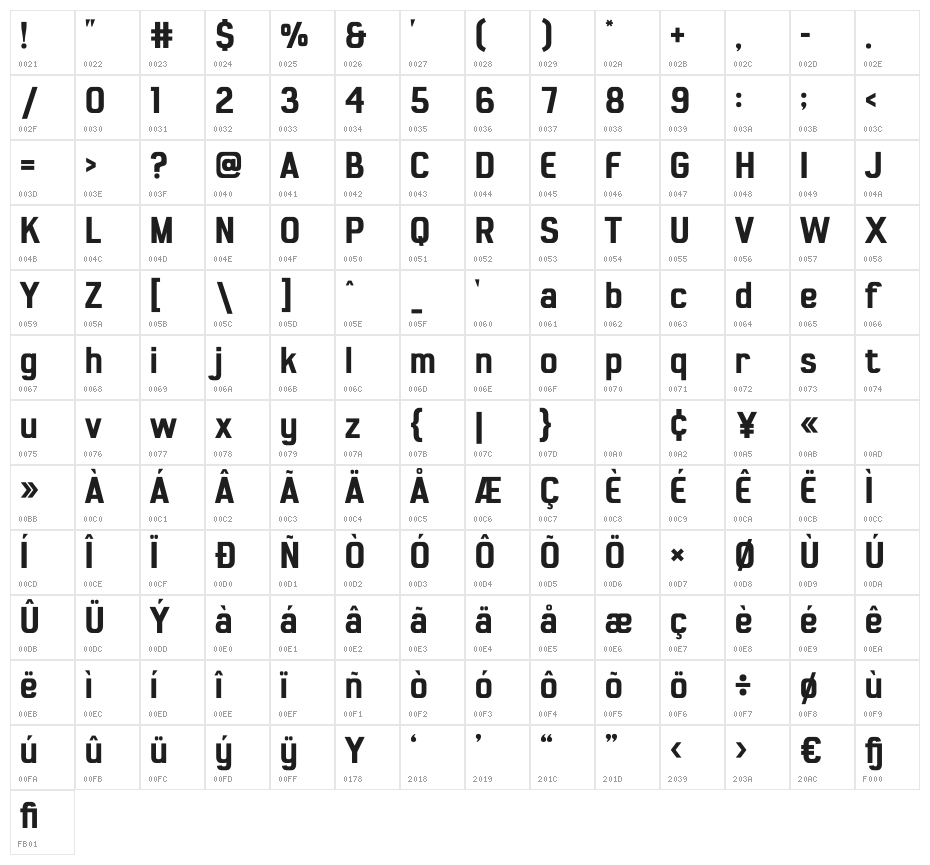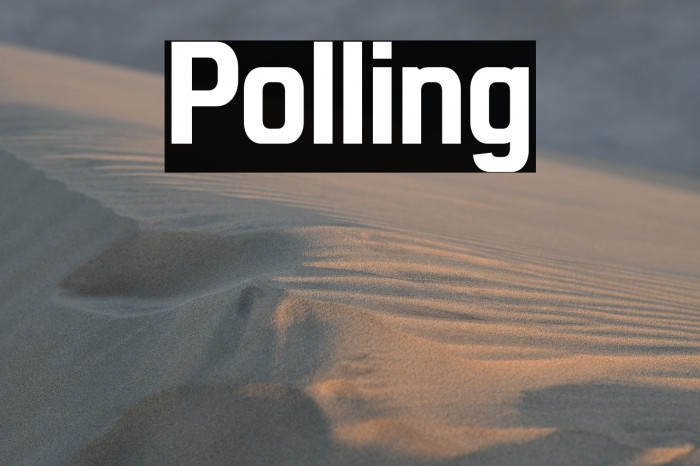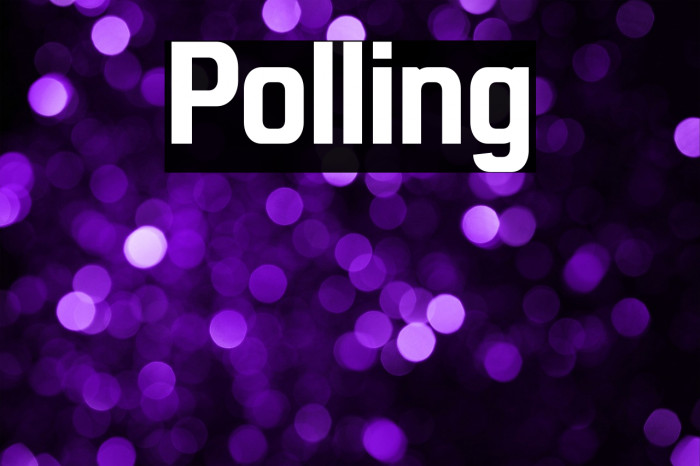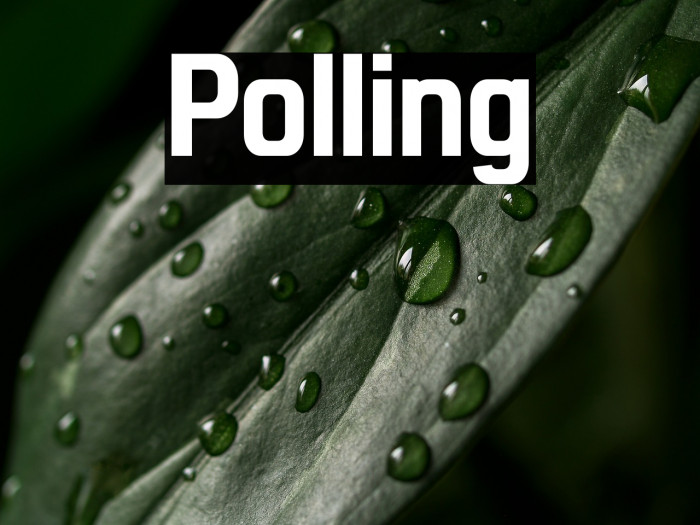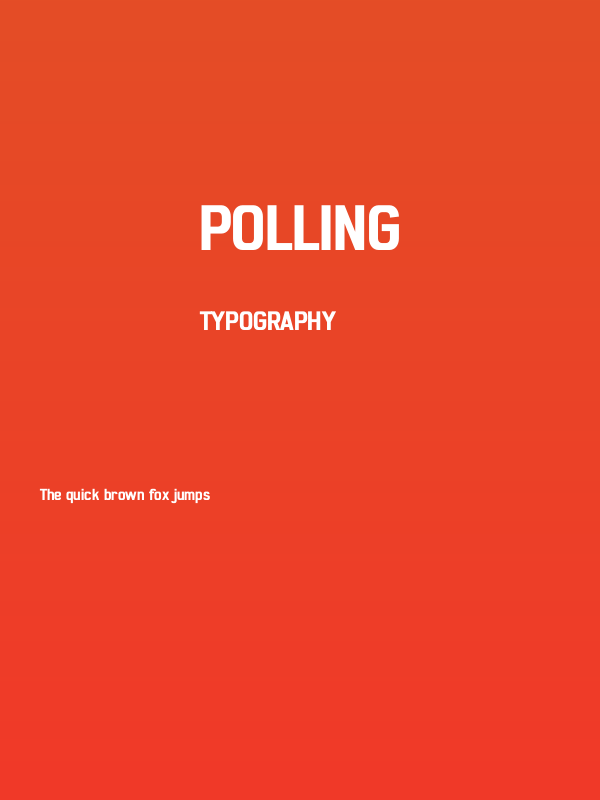
Polling Font
Polling Description
This font features a bold and robust design, characterized by its thick, uniform strokes and geometric shapes. The uppercase letters are strong and commanding, while the lowercase letters maintain a consistent and harmonious appearance. The numerals are clear and easily distinguishable, making them suitable for various applications. The special characters are well-integrated, maintaining the overall aesthetic of the font. Its clean lines and modern look make it versatile for both digital and print media.